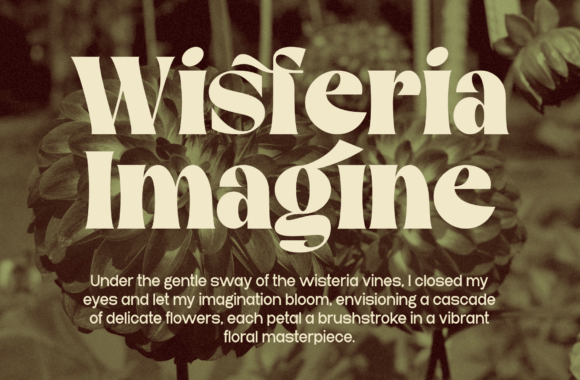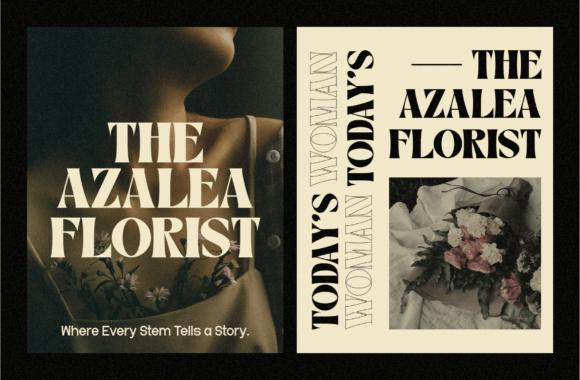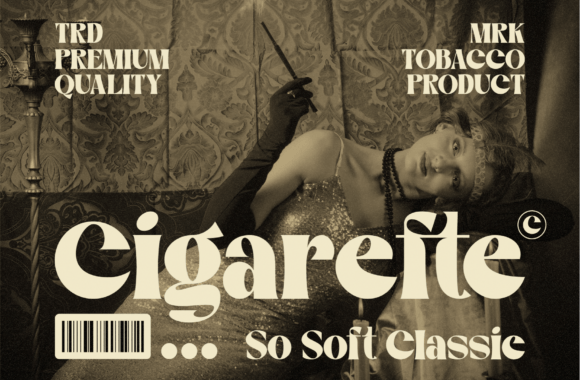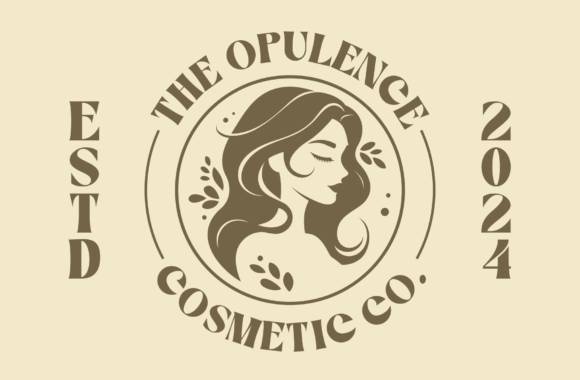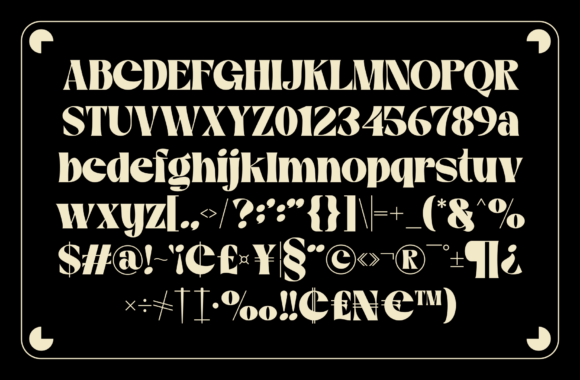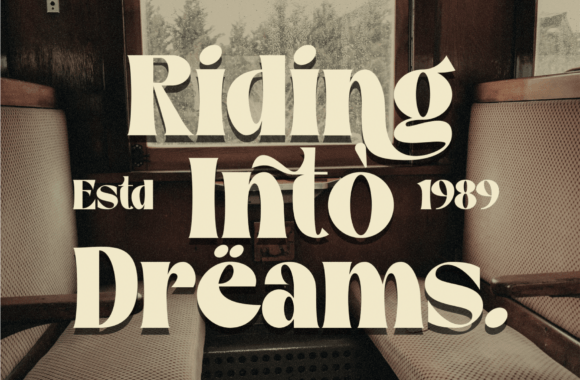
Introduction to Mofagi Font
Have you ever been working on a creative project, pouring your heart and soul into the design, only to be held back by the lack of the perfect font? That’s where our new Mofagi Font comes in – a game-changing, high-quality serif display font that’s sure to elevate your designs to the next level.
As a valuable resource for designers, Mofagi Font is the perfect addition to any design project. Its timeless classic style makes it suitable for a wide range of contexts, from branding projects to template design. Whether you’re working on a logo, product design, or anything in between, Mofagi Font is the perfect design resource to bring your vision to life.
Key Features of Mofagi Font
- Unique, modern design with a transparent background for flexible usage in various contexts
- Includes a comprehensive character set, supporting multiple languages for global applications
- Optimized for high-resolution displays, featuring crisp and clear typography at 300 DPI
Honest Review: Mofagi Font
I recently had the chance to work with the Mofagi Font, and I must say it’s been a game-changer for my design projects. The font’s high quality and versatility have made it a valuable design resource that I’ll definitely be using again.
- ✨ The font’s unique style and quirky feel make it perfect for creative projects that need a bit of personality.
- ✨ The transparent background makes it easy to use in a variety of design applications.
- ⚠️ The font may not be suitable for projects that require a more formal or traditional feel.
- ⚠️ The font’s uniqueness can also be a drawback if you’re looking for something more straightforward.
Overall, I’m really impressed with the Mofagi Font and would highly recommend it to designers looking for a high-quality, creative font for their next project.
Tips for Getting the Most Out of Mofagi Font
To get the most out of Mofagi Font, experiment with different font sizes, colors, and combinations. You can also use it in conjunction with other design elements to create a visually striking effect.
Mofagi Font is perfect for creative projects such as logo design, typography, and branding. Its unique design and transparent background make it an excellent choice for any project that requires a touch of elegance and sophistication.
The Mofagi Font is a high-quality design resource due to its crisp and clear typography, transparent background, and extensive character set. It’s perfect for designers working on creative projects that require a unique and stylish font.